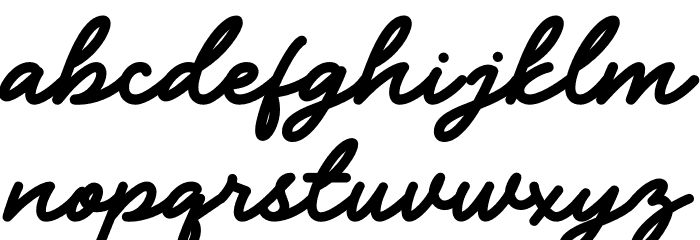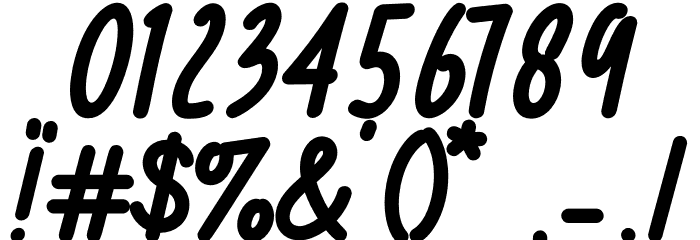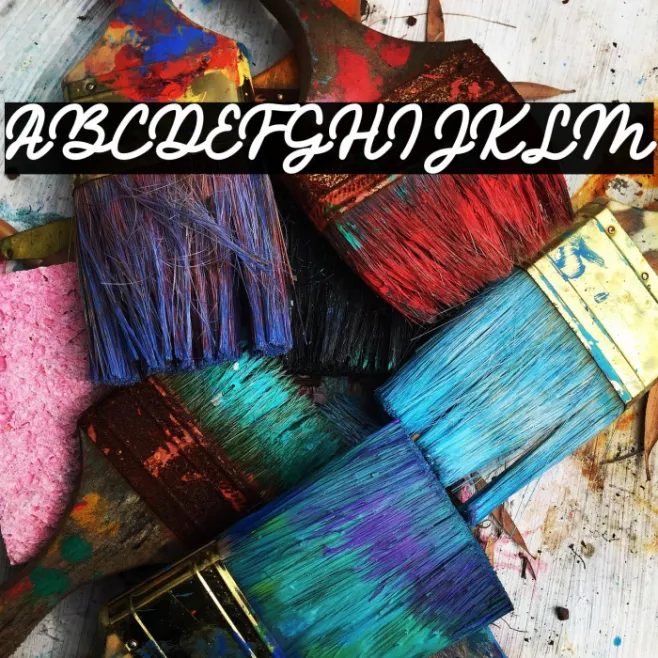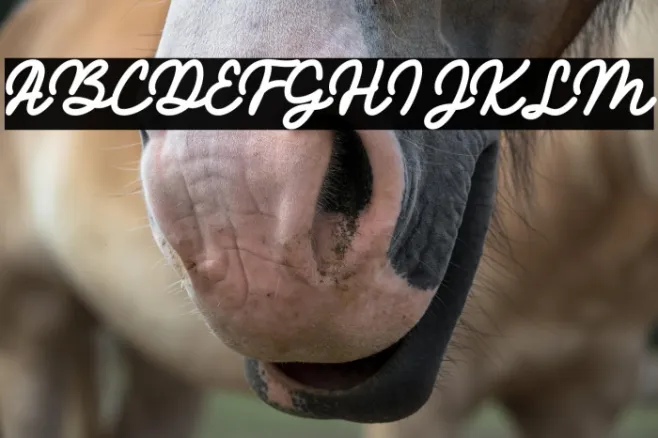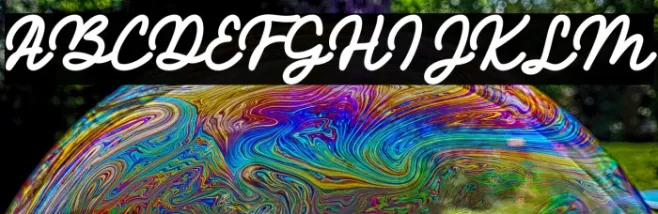
California-Personal Use Font
This font features a flowing, cursive style with a modern twist. The letters are interconnected, giving it a handwritten appearance that is both elegant and casual. The uppercase letters maintain a consistent height, while the lowercase letters have a slight slant, enhancing the script-like quality. Numbers and special characters are designed to match the fluidity of the alphabet, ensuring a cohesive look across all characters. The strokes are bold, providing a strong visual impact, yet the overall design remains approachable and friendly.
A bold, cursive script font with a modern, handwritten style.
- Font: California-Personal Use
- Proposed Projects: Ideal for personal branding, invitations, greeting cards, and creative projects that require a personal touch.
- Category: Script
- Use Case: Logos, Headlines, Invitations